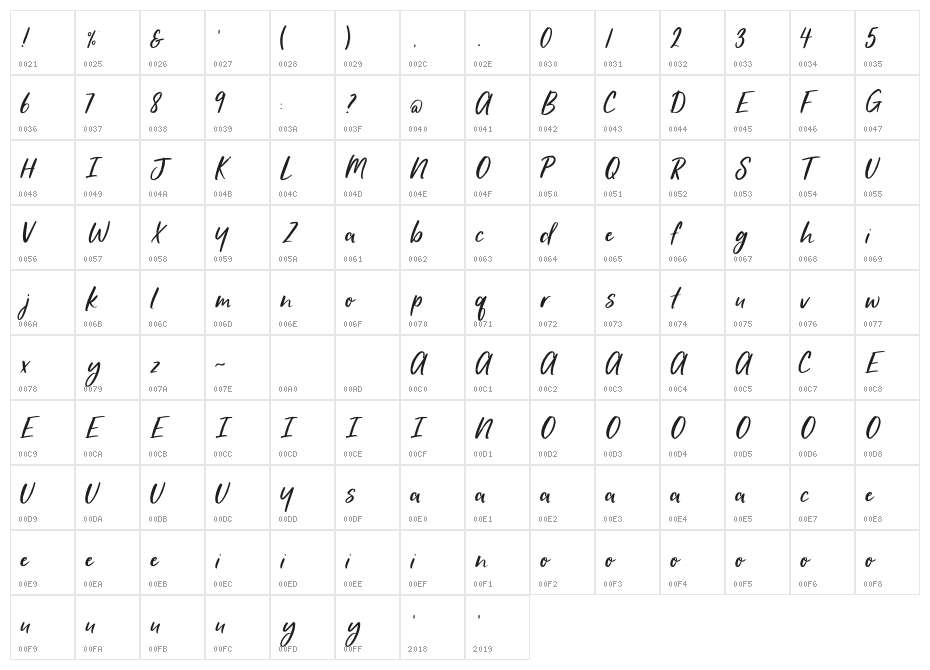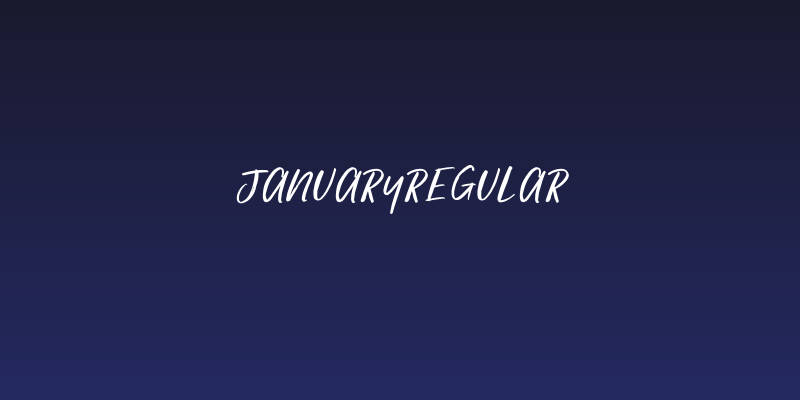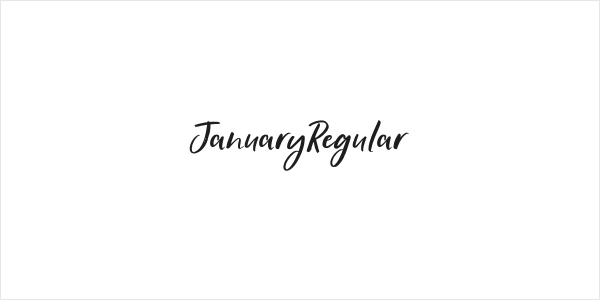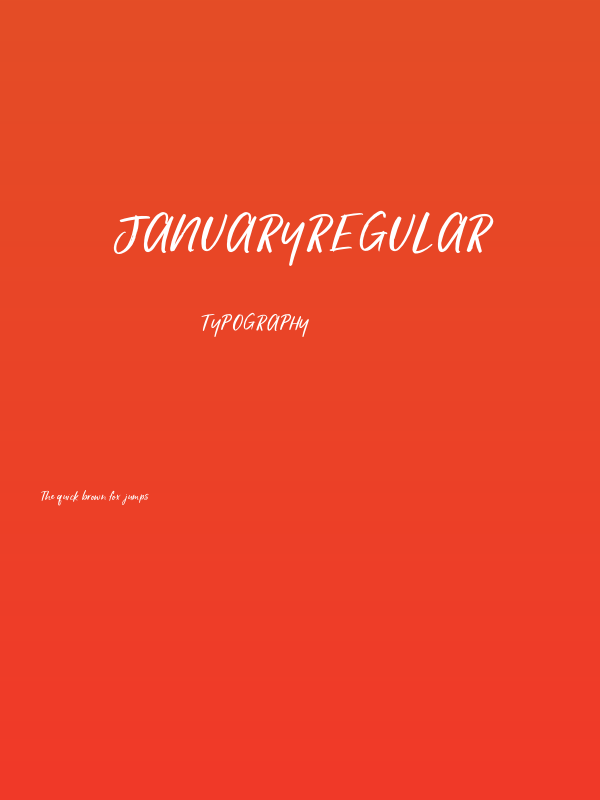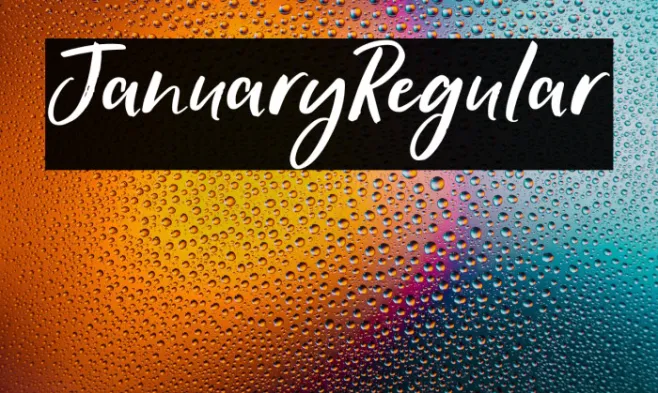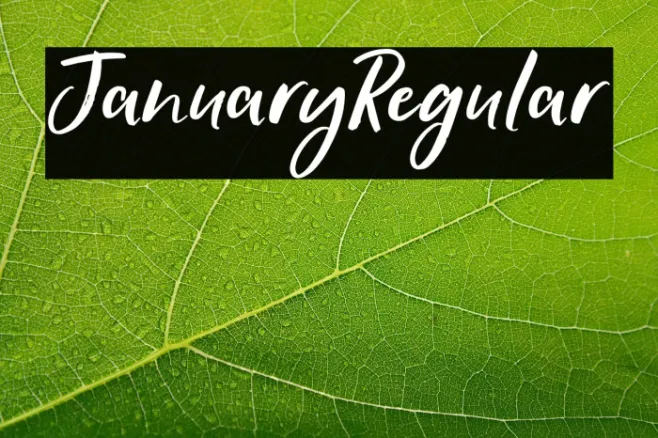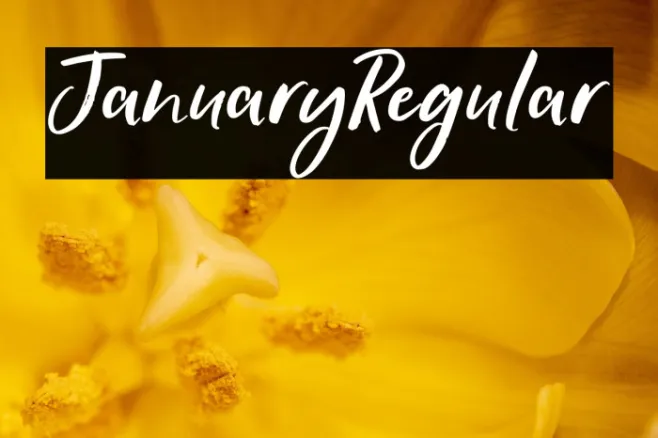
JanuaryRegular Font
JanuaryRegular Description
This font features a dynamic and fluid script style, characterized by its smooth, flowing strokes and slight slant. The uppercase letters are bold and expressive, while the lowercase letters maintain a consistent rhythm with elegant curves. The numerals are clear and legible, complementing the overall aesthetic. Special characters are designed with the same attention to detail, ensuring a cohesive look across all glyphs. The font's hand-drawn appearance adds a personal touch, making it suitable for projects that require a warm and inviting feel.
| Proposed Projects | Ideal for wedding invitations, greeting cards, branding, and social media graphics. |